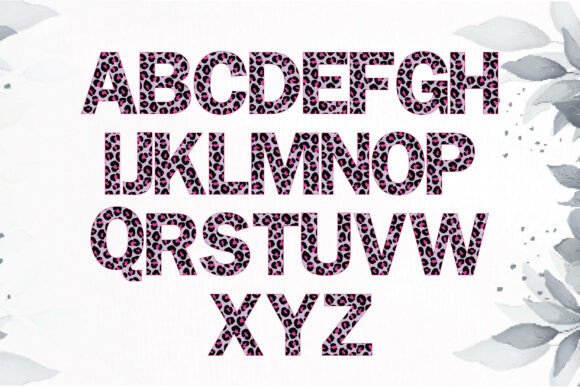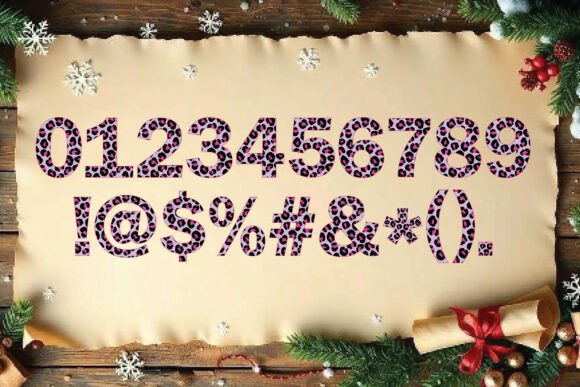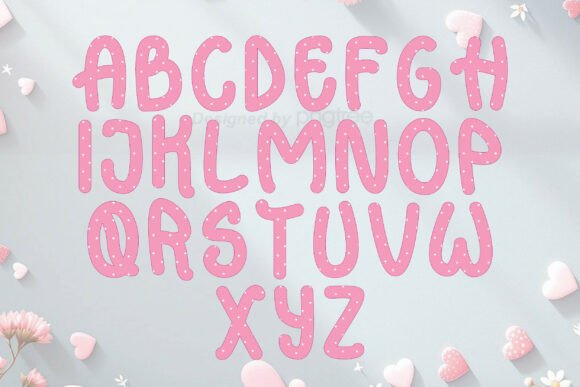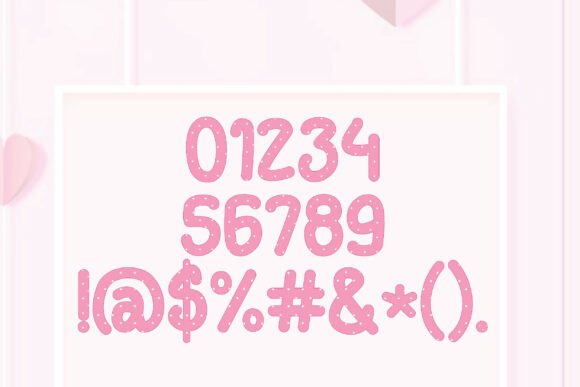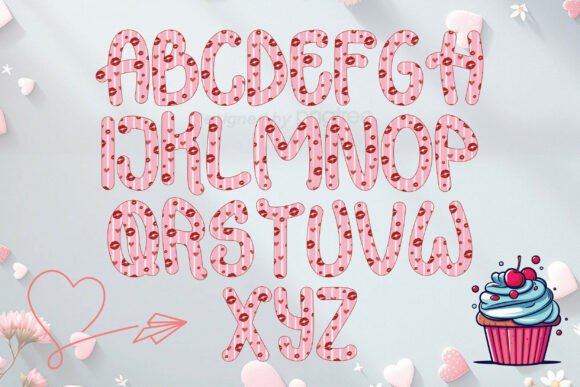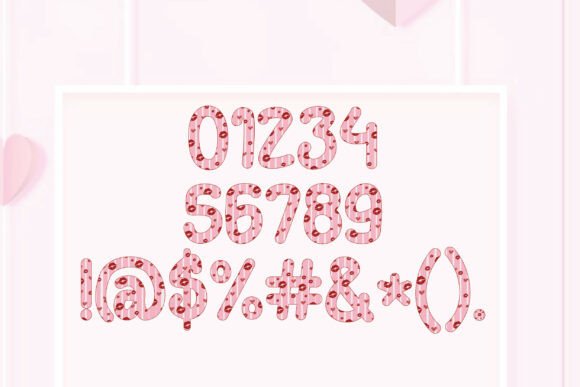
Get Ready to Fall in Love with Design
Have you ever found yourself stuck in a design rut, searching for the perfect font to capture the essence of a project? You know, that moment when everything feels just right, and the perfect combination of style and creativity comes together? It’s a feeling that’s hard to describe, but it’s a mix of excitement, joy, and a sense of accomplishment. For designers, this feeling is a regular occurrence, and it’s what drives us to keep pushing the boundaries of our craft.
Enter the Berry Valentine’s Bundle Font, a collection of 4 adorable display fonts designed to bring a touch of sweetness and romance to your projects. This lovely bundle is perfect for Valentine’s Day designs, but its cuteness is not limited to just one day a year. With its mix of soft, bubbly, dotted, and sweet lettering styles, it’s ideal for everyday creations that require a playful touch.
As a designer, you know how valuable a versatile font bundle can be. The Berry Valentine’s Bundle Font is no exception, offering a wide range of creative possibilities that will make your designs stand out from the crowd.
Berry Valentine’s Bundle Font Key Features
- Unique Characteristics: Berry Valentine’s Bundle Font features a unique, hand-drawn design with a touch of whimsy and romance, making it perfect for Valentine’s Day and other romantic occasions.
- Character Count: The font includes over 500 characters, including uppercase and lowercase letters, numbers, punctuation marks, and special characters.
Designer Review: Berry Valentine’s Bundle Font
I recently had the chance to work with the Berry Valentine’s Bundle Font, and I must say it’s a mixed bag. On one hand, here are some things that work well: ✨ The font is incredibly versatile and can be used for a variety of projects, from romantic invitations to playful social media graphics. ✨ The bundle includes a wide range of font styles, from bold and playful to elegant and sophisticated. ✨ The font is also highly customizable, with options for adjusting font sizes, colors, and even adding special effects.
However, there are also some limitations: ⚠️ The font can be a bit difficult to read at smaller sizes, which may limit its use in certain applications. ⚠️ Some of the font styles can feel a bit too similar, which may make it difficult to create a cohesive visual brand. ⚠️ The font also doesn’t include any international characters, which may be a limitation for projects that require language support.
Overall, I would say that the Berry Valentine’s Bundle Font is a solid choice for designers looking to add a touch of romance and whimsy to their projects. While it may have some limitations, the font’s versatility and customizability make it a great option for a wide range of applications.
- Target audience: Designers looking for a romantic and whimsical font
- Best use: Invitations, social media graphics, wedding stationery